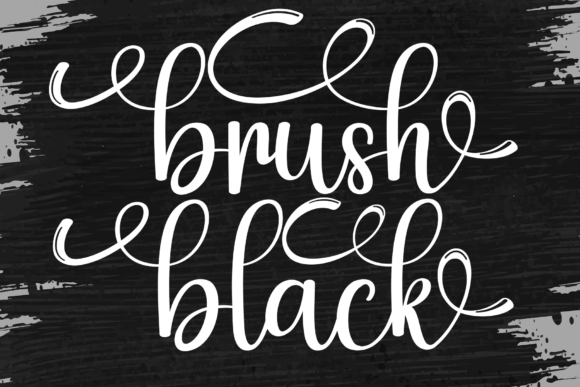
The Brush Black Font: A Game-Changer for Designers and Crafters
I still remember the time I was working on a project for a client who wanted a bold, eye-catching font that would make their brand stand out. I had tried countless fonts, but none of them seemed to fit the vibe they were looking for. That’s when I stumbled upon Brush Black, a handwritten font that looked like it was drawn with a thick paintbrush. It was love at first sight! ✨
The bold, flowing letters of Brush Black gave a lively and casual feel to the text, making it perfect for the client’s project. From that day on, I made sure to have Brush Black in my font arsenal. In this article, I’ll share with you what makes Brush Black so special, its uses, and some practical tips on how to make the most out of it.
An Honest Review of Brush Black
What I Love About Brush Black
- 💥 Bold and eye-catching: Brush Black is perfect for creating designs that grab attention.
- 🎨 Handwritten feel: The font’s handwritten style gives it a personal touch that’s hard to achieve with other fonts.
- 🖌️ Versatile: Brush Black can be used for a wide range of projects, from posters and flyers to social media graphics and branding.
- ✅ Easy to read: Despite its bold style, Brush Black is surprisingly easy to read, even in smaller sizes.
While Brush Black is an amazing font, it’s not perfect. Here are a few things to keep in mind:
- 🤔 Limited use in formal designs: Brush Black’s casual style might not be suitable for formal designs, such as business reports or academic papers.
- ⚠️ Overuse can be overwhelming: Using Brush Black excessively can make your design look overwhelming or chaotic.
The Story Behind Brush Black
Brush Black was designed by a team of creatives who wanted to create a font that would capture the essence of hand-drawn typography. Inspired by the works of street artists and graffiti writers, they crafted Brush Black to be a bold and eye-catching font that’s perfect for designs that need a personal touch.
Q: Is Brush Black suitable for body text?
A: While Brush Black is easy to read, it’s not ideal for body text due to its bold style. It’s best used for headings, titles, or short paragraphs.
Q: Is Brush Black available in different languages?
A: Brush Black may not support all languages, but it does include a range of glyphs and characters that can be used for multilingual designs.